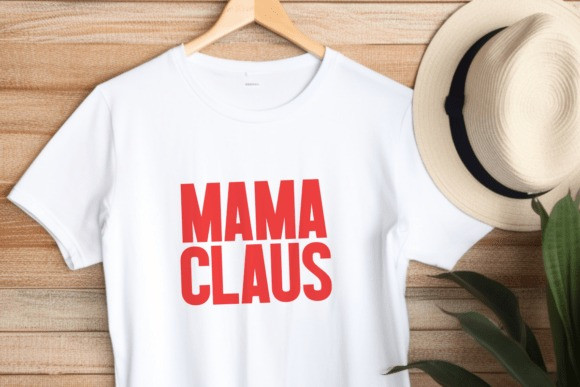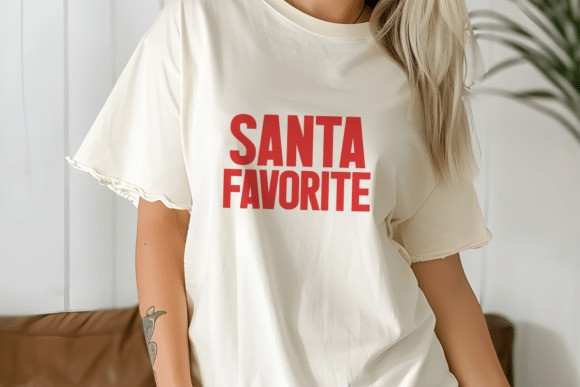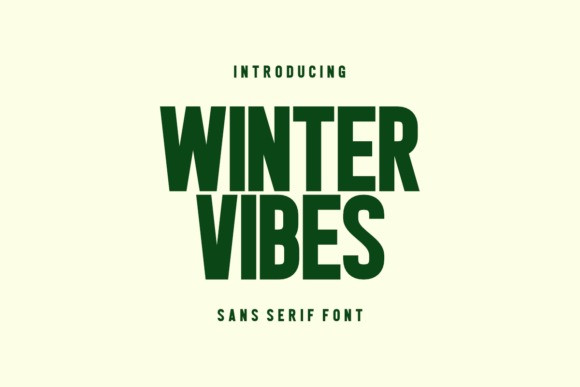
Winter Vibes Sans Font
Winter Vibes Sans Font is a modern sans-serif font with a stunning vintage feel. It’s perfect for logos, t-shirts, mugs, invitations, greeting cards, branding, posters, packaging, signs, cutting boards, printables, crafting, and other designs. Whatever your creative needs are, Winter Vibes is the perfect choice for a modern yet simple design!